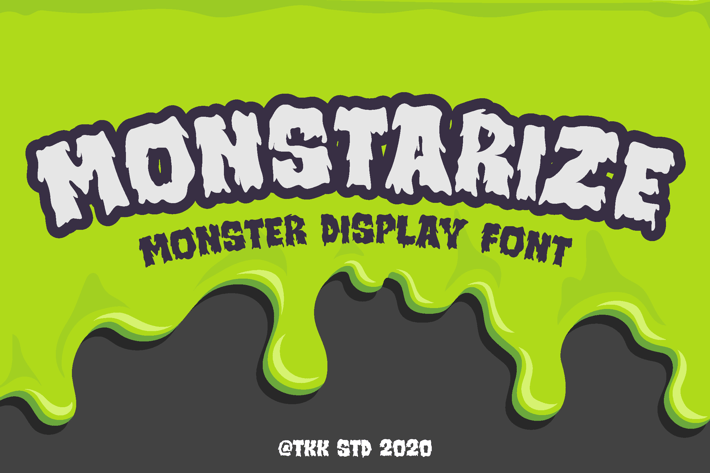
Monstarize - Horror Spooky Gaming Font
Monstarize - The Bold & Bouncy Monster Display Typeface
Monstarize is a bold monster display typeface with bouncy letterforms and exaggerated curves—ideal for creators looking for a long-tail solution to design fun, spooky, yet approachable visuals. With playful proportions, thick outlines, and expressive glyphs, it captures the charm of Halloween-inspired graphics without leaning too far into the grotesque. This font evokes the vibe of animated monsters and childhood thrillers, perfect for Instagram carousels, gaming titles, kids books, and spooky event branding.
Whether you're designing a YouTube thumbnail for a scary prank video, building a kid-friendly horror game menu, or launching a Halloween festival poster, Monstarize brings life to your visuals. It offers the right balance of scary and silly—just enough to intrigue kids, engage teens, and charm adults. It instantly sets the tone for fun mischief, storytelling, and seasonal promotions.
Why Designers Love Monstarize
- Visually Striking: Playful bounce and strong contrast give every letter standout energy.
- Kid-Friendly: Maintains high legibility while embracing exaggerated, cartoonish forms.
- Versatile Use: Ideal for poster headlines, mobile games, book covers, and UI design.
- Memorable Style: Unique monster-themed flair with wide appeal across media formats.